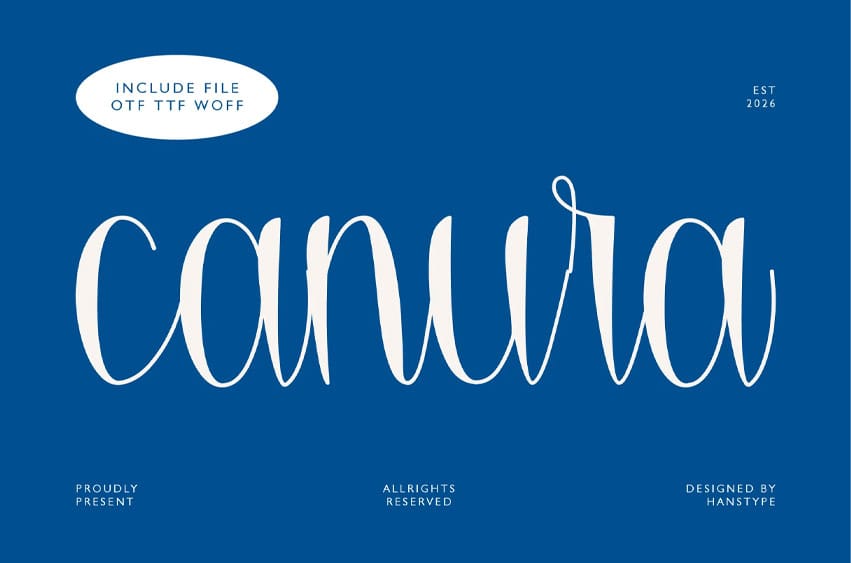
Canura Font is a distinctive script font that combines bold elegance with a unique artistic touch.
Its carefully crafted letterforms and smooth, flowing strokes make it ideal for projects that require a balance of personality and sophistication.